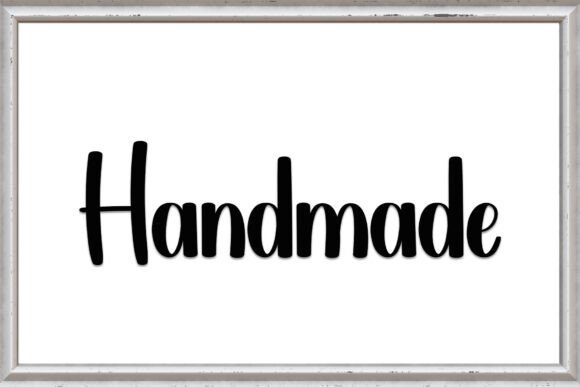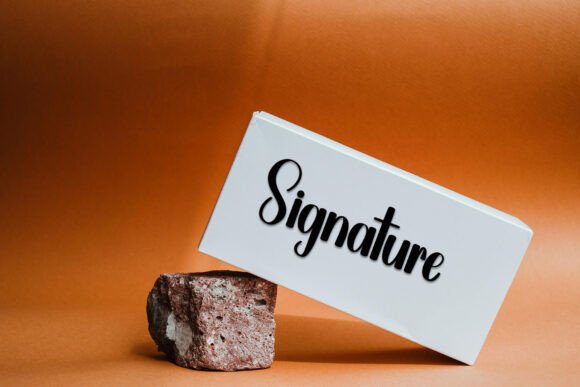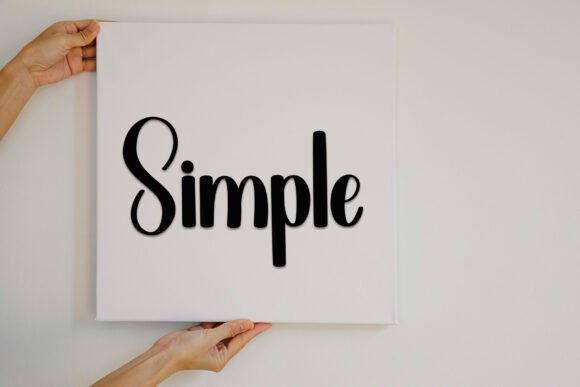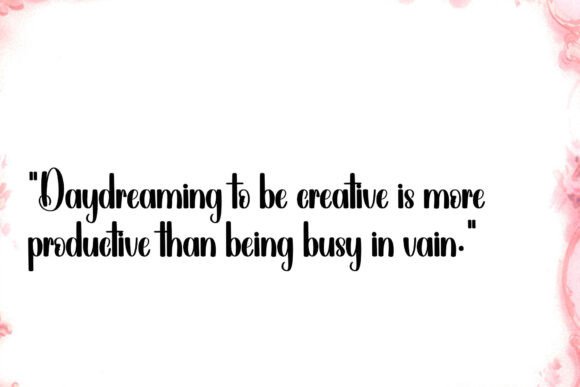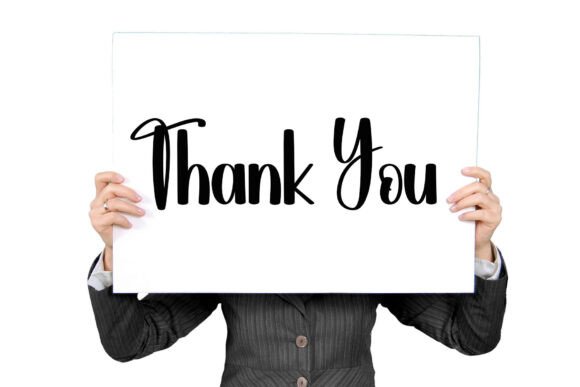
Introducing Chores Font: The Perfect Addition to Your Design Projects
Are you tired of using the same old fonts in your design projects? Look no further than Chores Font, a bold handwritten font that’s sure to add a personal touch to your creations. With its thick lines and playful style, Chores Font is perfect for designers and crafters who want to convey a casual and creative vibe.
What is Chores Font?
Chores Font is a bold handwritten font that’s designed to be fun and friendly. Its unique style is characterized by thick lines and a playful aesthetic that’s sure to make your projects stand out. Whether you’re working on an invitation, poster, or any other design project, Chores Font is the perfect choice.
Key Features of Chores Font
- Bold and Playful Style: Chores Font has a bold and playful style that’s sure to grab attention.
- Thick Lines: The font’s thick lines give it a unique and distinctive look that’s perfect for designs that need a personal touch.
- Handwritten Aesthetic: Chores Font has a handwritten aesthetic that’s perfect for creating a casual and creative vibe.
- Versatile: Chores Font works well for a variety of design projects, including invitations, posters, and more.
Uses for Chores Font
Chores Font is a versatile font that can be used for a variety of design projects. Here are some ideas to get you started:
- Invitations: Chores Font is perfect for creating invitations for parties, weddings, and other special events.
- Posters: The font’s bold and playful style makes it perfect for creating eye-catching posters for events, promotions, and more.
- Social Media Graphics: Chores Font can be used to create social media graphics that are fun, friendly, and engaging.
- Crafting Projects: Chores Font is perfect for crafters who want to add a personal touch to their projects, such as handmade cards, gift tags, and more.
Why Choose Chores Font?
There are many fonts to choose from, but Chores Font stands out for its unique style and versatility. Here are some reasons why you should choose Chores Font for your next design project:
- Unique Style: Chores Font has a unique style that’s sure to make your projects stand out.
- Easy to Read: Despite its bold and playful style, Chores Font is easy to read, even at small sizes.
- Customizable: Chores Font can be customized to fit your design needs, including adjusting the size, color, and more.
- Support for Multiple Languages: Chores Font supports multiple languages, making it a great choice for designers who work with international clients.
Tips for Using Chores Font
Here are some tips for using Chores Font in your design projects:
- Use it as a Headline Font: Chores Font is perfect for use as a headline font, where its bold and playful style can really shine.
- Pair it with Other Fonts: Chores Font can be paired with other fonts to create a unique and interesting design.
- Experiment with Colors: Chores Font looks great in a variety of colors, so don’t be afraid to experiment and find the perfect color for your design.
- Use it to Add a Personal Touch: Chores Font is perfect for adding a personal touch to your designs, so use it to make your projects stand out.